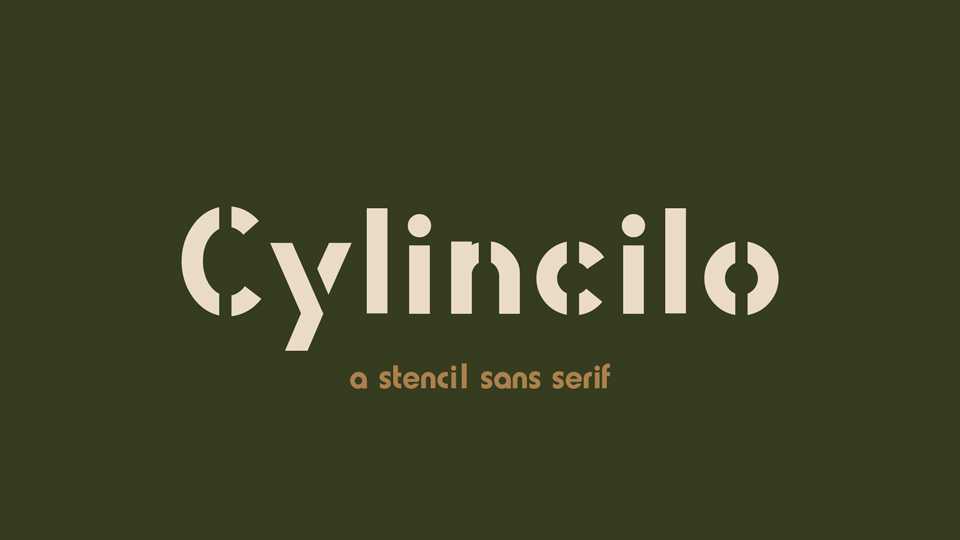
Download Cylincilo font, a stencil geometric sans serif typeface. Cylincilo should be used big, in headlines, posters and display applications, where it can play a bold and strong role.
Designer: J Hudson